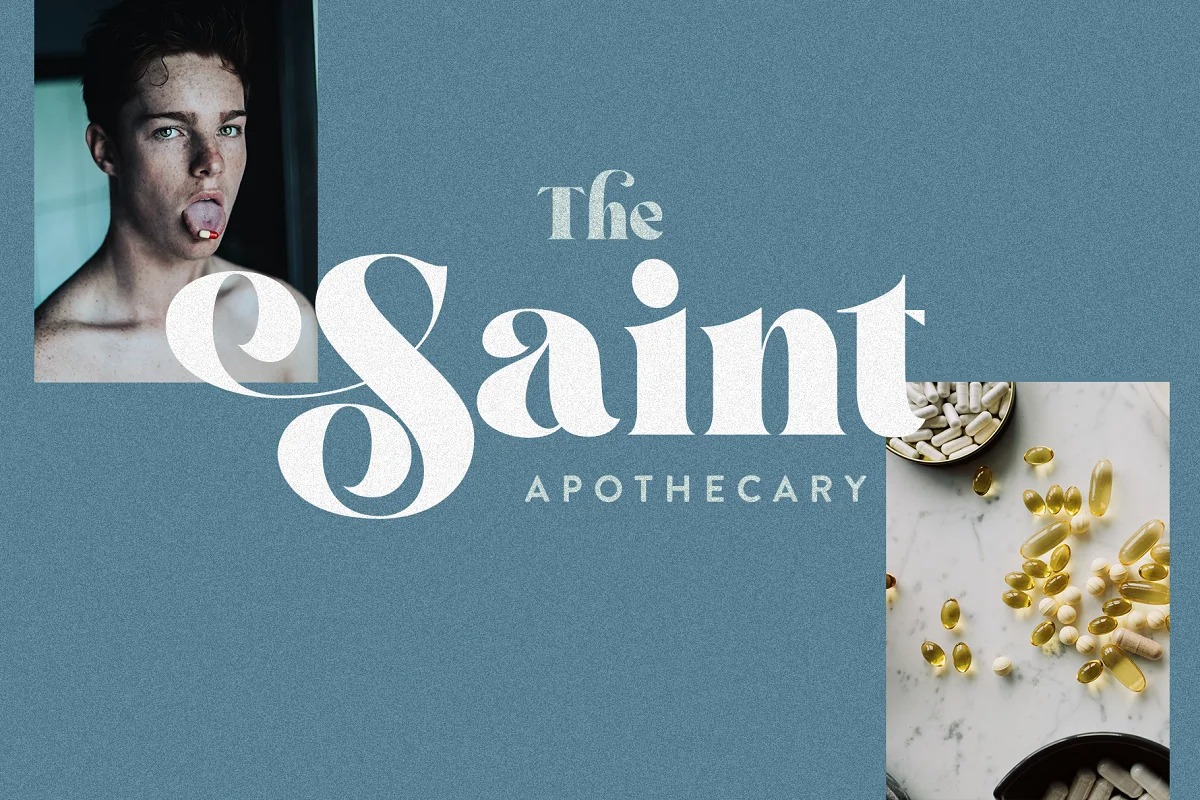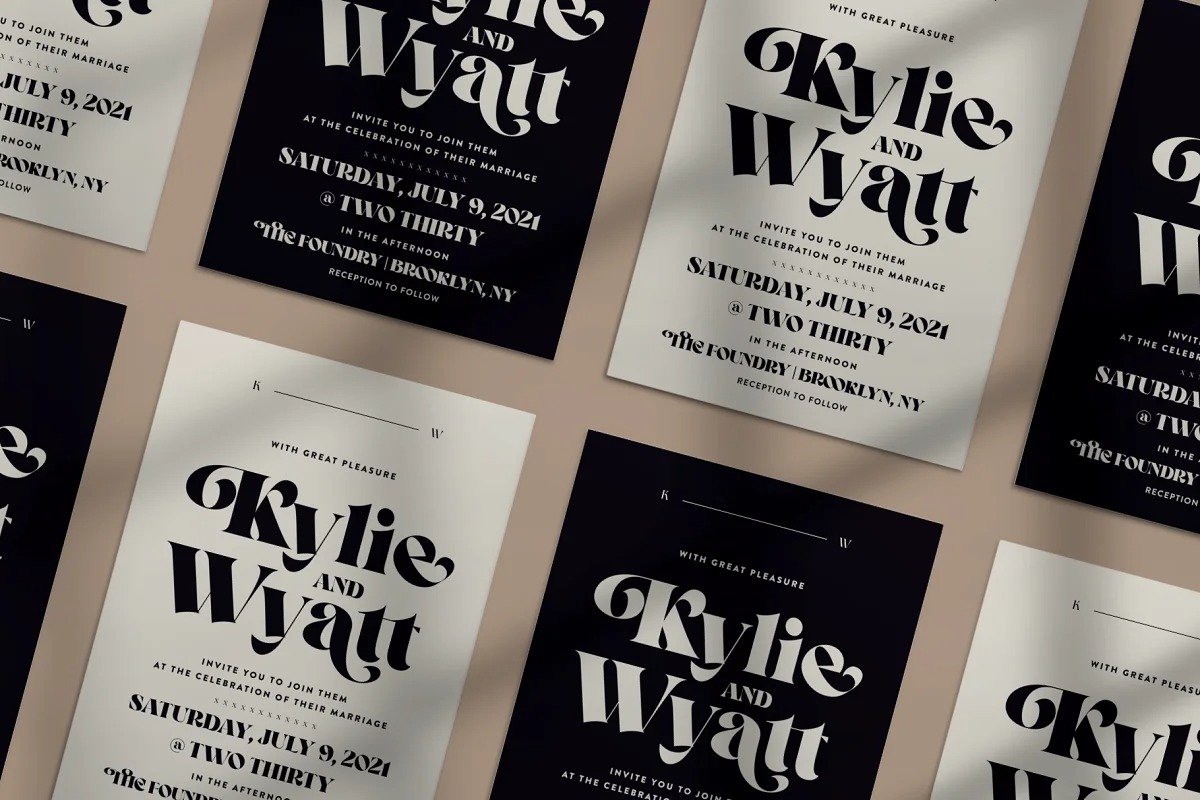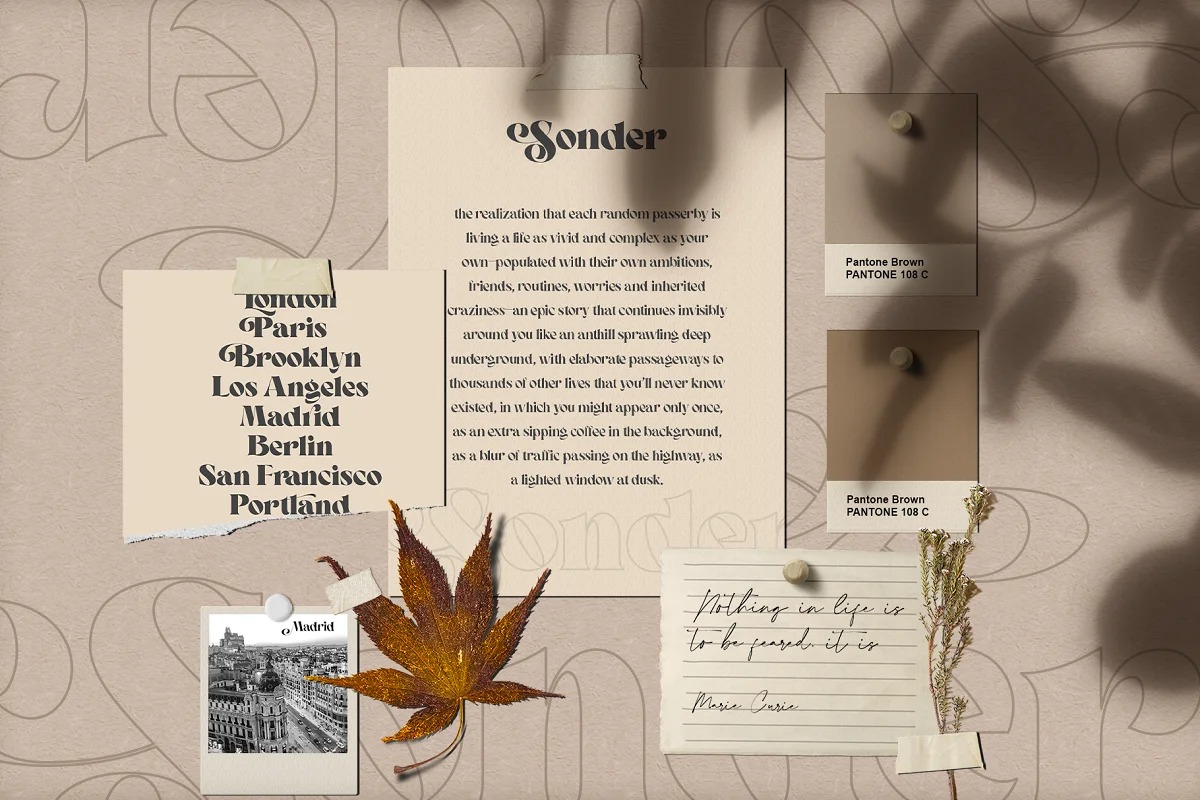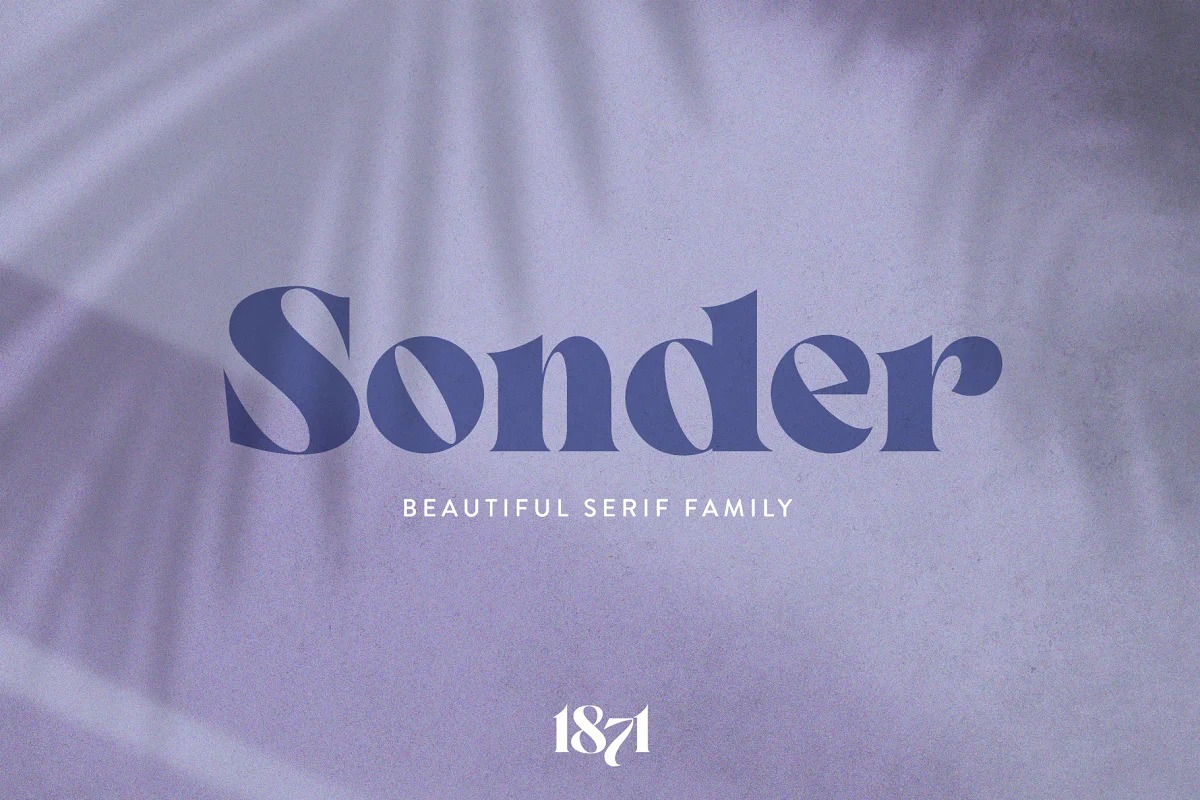
Sonder Serif Font
This font is a contemporary Didone Serif with 5 weights making it super versatile for almost any project! Sonder is inspired by timeless packaging from a forgotten era. It has a beautiful range of stylistic alternates with unique characters making it a powerhouse for logos, headlines, posters, shirts, you name it!